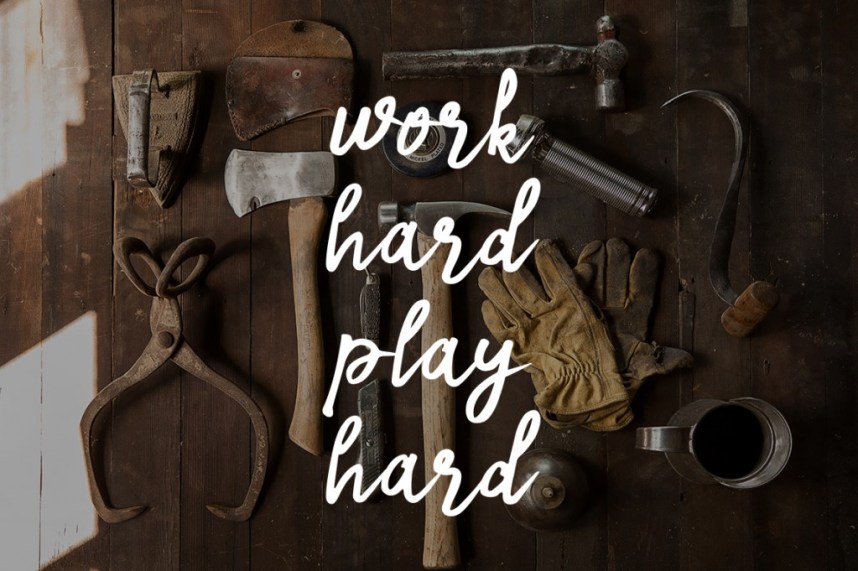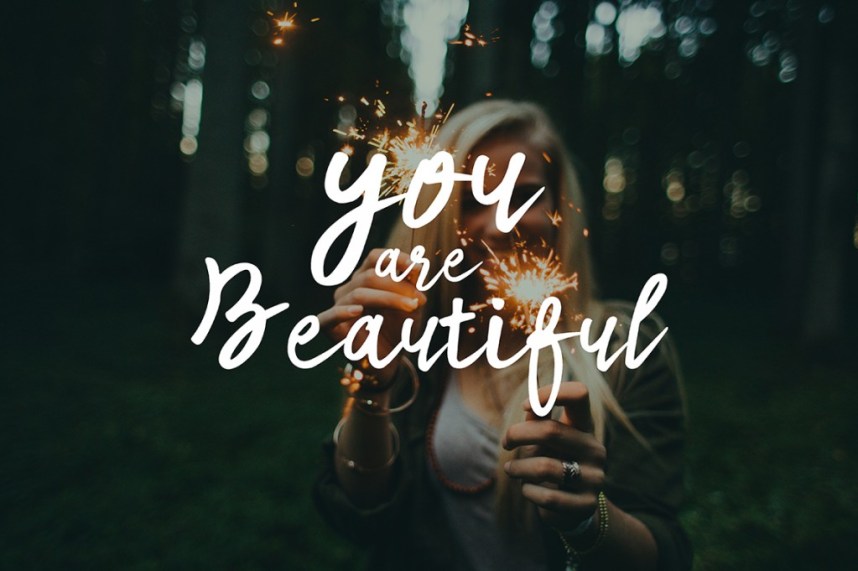
Savira Script Font
Savira Font is a beautiful handmade typeface, and perfect blend of feminine and masculine. It suitable for Logotype, Poster Tagline, Magazine Tagline, Greeting Cards, Invitation Card, or anything that needs to be in a stylish looks.